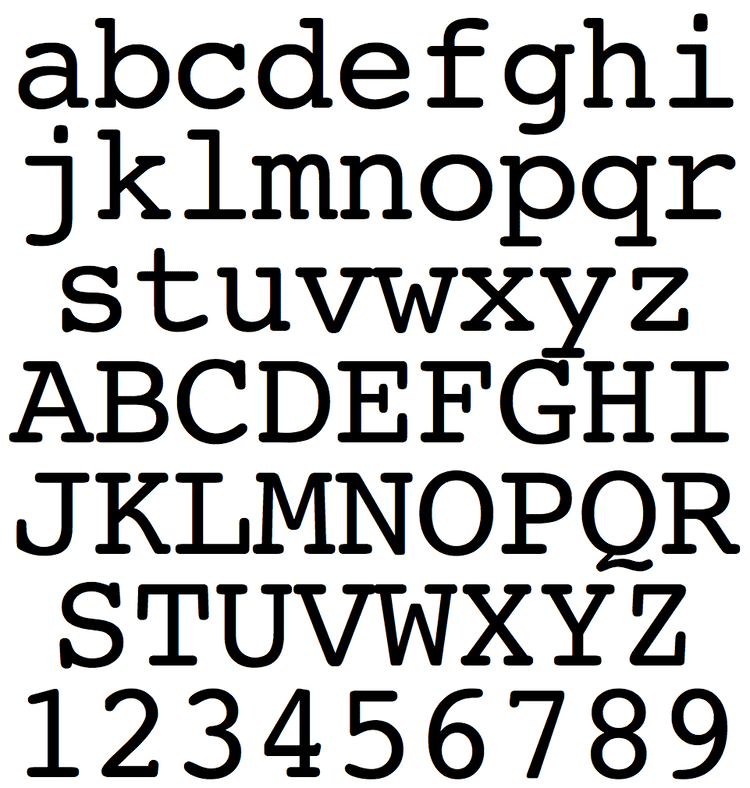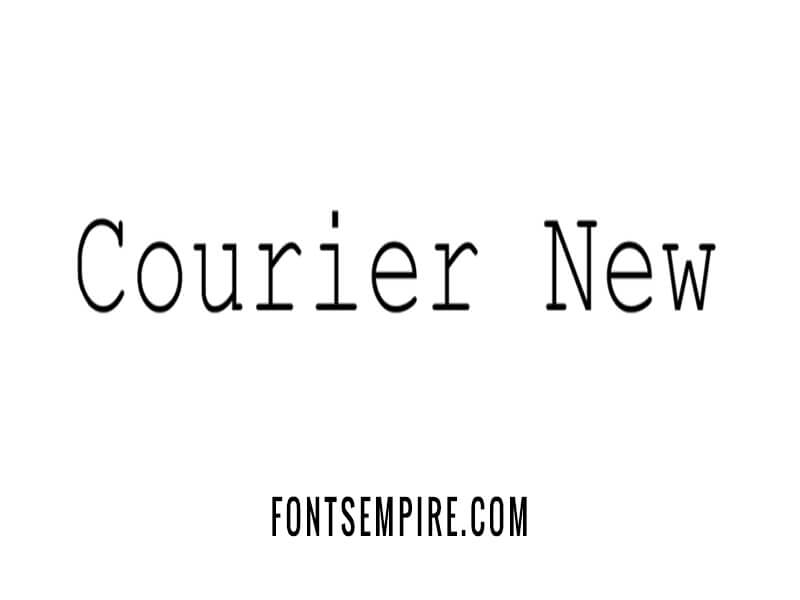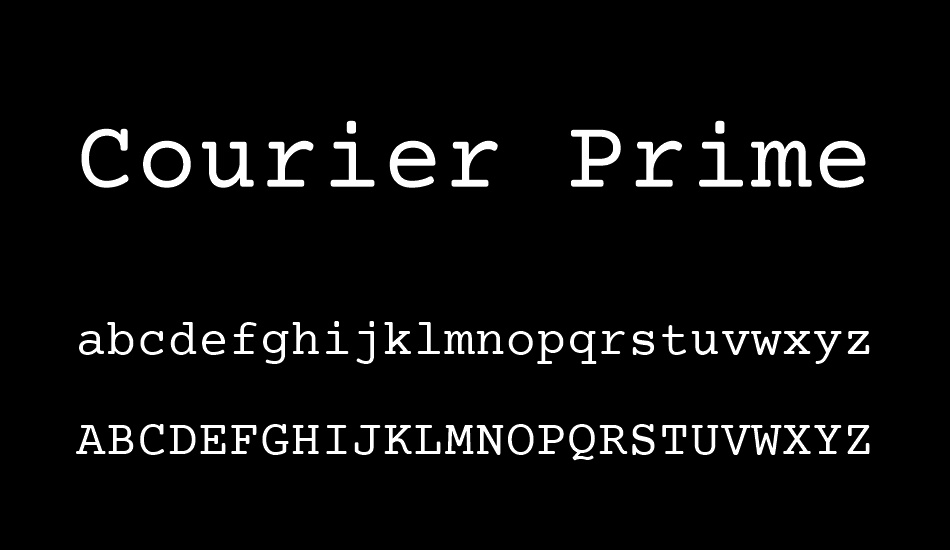
Font Family Courier - Explore courier designed by howard kettler at adobe fonts. A monospaced typeface with 4 styles,. Web courier | adobe fonts. Web courier prime is a new take on ibm's courier which was designed in 1956 by howard kettler.
Web Courier Prime Is A New Take On Ibm's Courier Which Was Designed In 1956 By Howard Kettler.